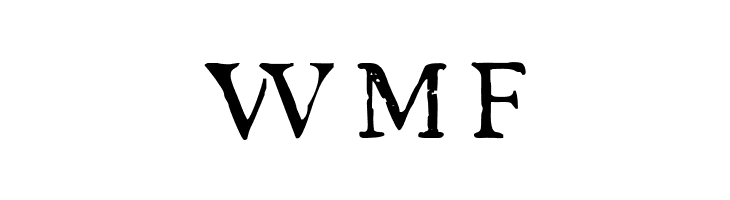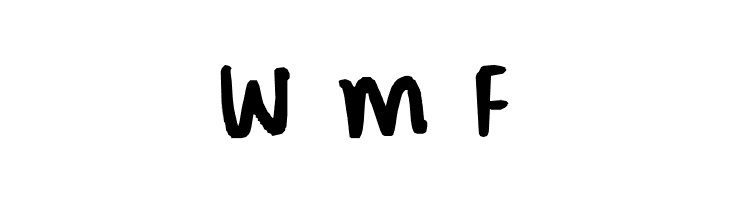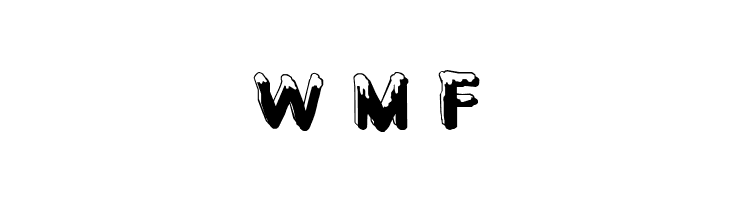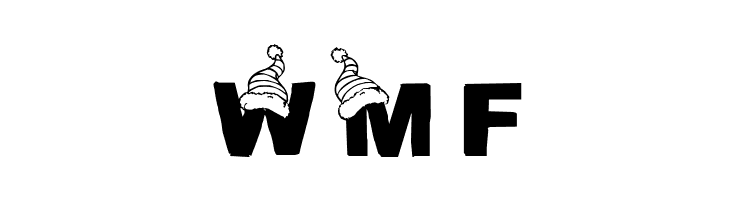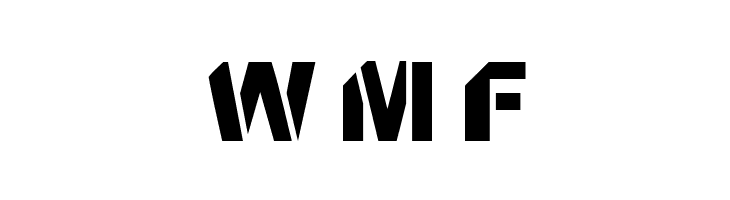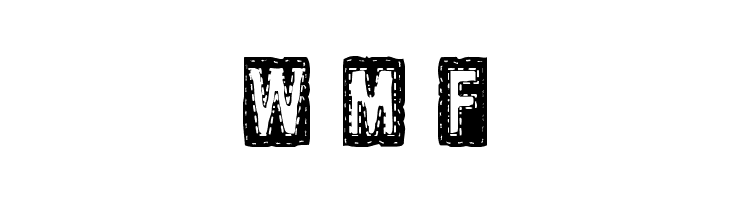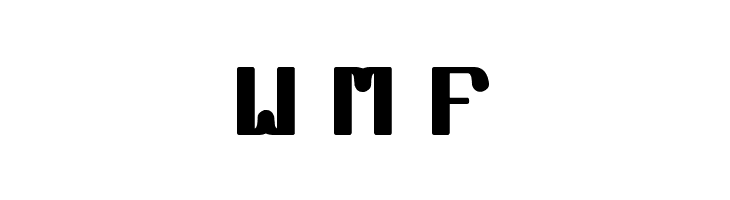
A bold, playful font with a snow-capped, three-dimensional effect.
A bold, stencil-style font with geometric shapes and clear cutouts.
A bold, decorative font with a stitched, patchwork design.
A bold, festive font with winter hats on each character, perfect for holiday themes.
A bold, playful font with rounded edges, perfect for casual and inviting designs.
A decorative, hand-drawn font with elegant swirls and a chalk-like texture.
A whimsical, hand-drawn chalkboard style font with decorative swirls and shading.
A whimsical, chalkboard-style font with elegant curls and a shaded effect.
A bold, outlined font with a dynamic and playful style.
A bold, shadowed font with a playful, three-dimensional style.
A whimsical, artistic font with fluid, curvy lines and playful forms.
A whimsical, artistic font with playful, exaggerated letterforms and a hand-drawn quality.
A modern, elegant sans-serif font with clean lines and balanced proportions.
A dynamic, angular font with a modern calligraphic style.
A bold, handwritten-style font with dynamic, slanted characters.
A bold, dynamic font with slanted characters and strong strokes.
A classic, elegant font with a calligraphic influence.
A bold, modern font with characters enclosed in squares, offering a unique geometric style.
A modern, clean sans-serif font with a slightly condensed style.
A classic serif font with elegant and refined letterforms, offering a timeless look.
A bold, classic serif font with strong, pronounced strokes.
A classic serif font with elegant proportions and balanced stroke contrast.
A classic serif font with elegant, traditional features and moderate contrast.
A bold, classic serif font with strong, elegant strokes.
A vintage, handcrafted font with bold, irregular strokes and playful numerals.
A whimsical collection of hand-drawn, illustrative symbols with a vintage, folkloric style.
A classic, cursive font with elegant, calligraphic influences and dynamic stroke contrast.
A vintage, handcrafted font with a rustic and artistic style.
A bold, geometric font with sharp angles and a modern aesthetic.
A bold, geometric font with sharp, angular edges and a modern style.
A bold, italicized font with sharp angles and dynamic slant.
A dynamic, angular font with sharp, slanted strokes and high contrast.